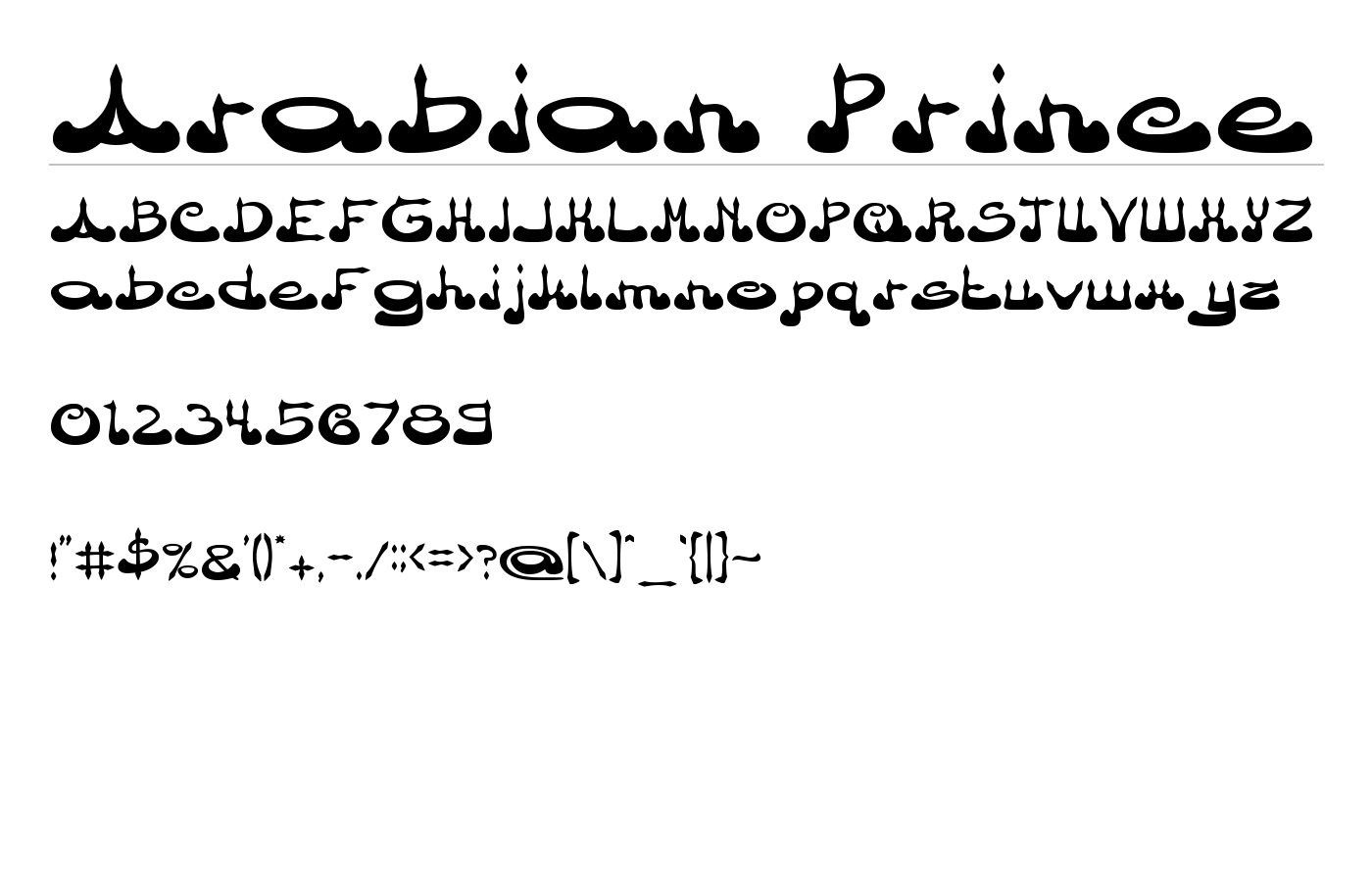
Arabian Prince is a playful and decorative display font featuring bold, rounded stroke endings with sharp, pointed accents that give it an exotic, whimsical feel. Its unique letterforms combine thick and thin elements with a slightly condensed width, making it ideal for eye-catching headlines, themed branding, and creative packaging where a fun, distinctive personality is desired. This font works best in contexts that benefit from a lively, imaginative vibe rather than extended reading.
Arabian Prince Font
About Arabian Prince Font